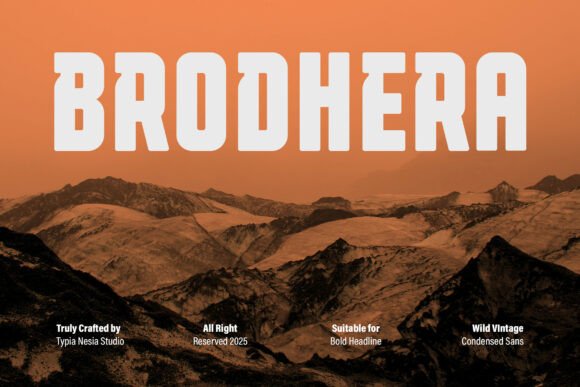
The Ultimate Guide to Brodhera Font: Elevate Your Designs with a Classic Vintage Boldness
What is Brodhera Font?
Brodhera is a Classic Vintage Rounded Bold Condensed Sans Font that exudes a commanding presence, making it perfect for high-impact display use. This tall and unapologetically bold typeface combines a modern, urban aesthetic with a rugged, wild feel, making it an excellent choice for logos, apparel, and branding projects in the sport, game, outdoor adventure, and tech industries.
- ✅ Condensed structure for maximum visibility
- ✅ Subtly rounded corners for legibility and a contemporary edge
- ✅ Perfect for logos, apparel, and branding projects in various industries
While Brodhera is an amazing font, there are a few things to keep in mind:
- 🤔 Legibility at small sizes: Due to its condensed structure, Brodhera may not be the best choice for body text or small font sizes.
- 🤔 Overuse: Because of its bold and attention-grabbing nature, it’s essential to use Brodhera judiciously to avoid overwhelming the design.
Brodhera was designed with the goal of creating a font that embodies the perfect balance of modernity and ruggedness. Inspired by classic vintage fonts, Brodhera’s designer aimed to create a typeface that would be both bold and legible, making it suitable for a wide range of design projects.
A: Brodhera is best used for high-impact display purposes, such as logos, apparel, and branding projects in the sport, game, outdoor adventure, and tech industries.
Q: Can I use Brodhera for body text?
A: While Brodhera can be used for body text, it’s not recommended due to its condensed structure and bold nature. It’s best suited for headlines and titles.